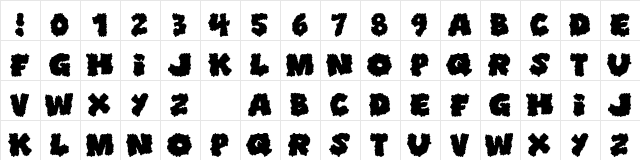
Shoplifters unite Regular
Design Context for Shoplifters unite Typeface
Shoplifters unite is a composed and adaptable typeface that performs quietly and consistently across a wide range of design contexts.